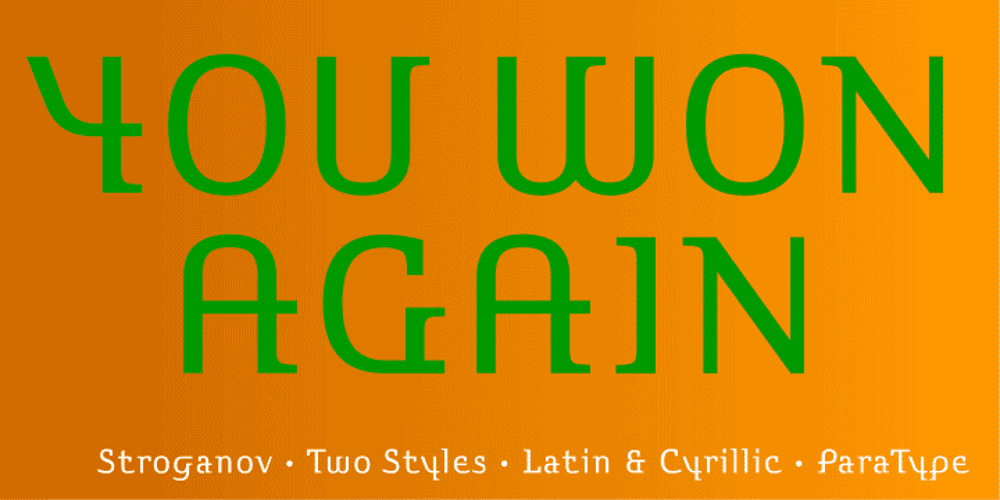
Stroganov Font Family was designed by Oleg Karpinsky and published by ParaType. Stroganov contains 2 styles and family package options. PT Stroganov™ was designed in 2002 by Oleg Karpinsky and licensed by ParaType. An original low-contrast typeface with irregular one-sided serifs. It has been named after Count Sergey Stroganov, the founder of the Stroganov School of Industrial Art in Moscow. For use in advertising and display typography.